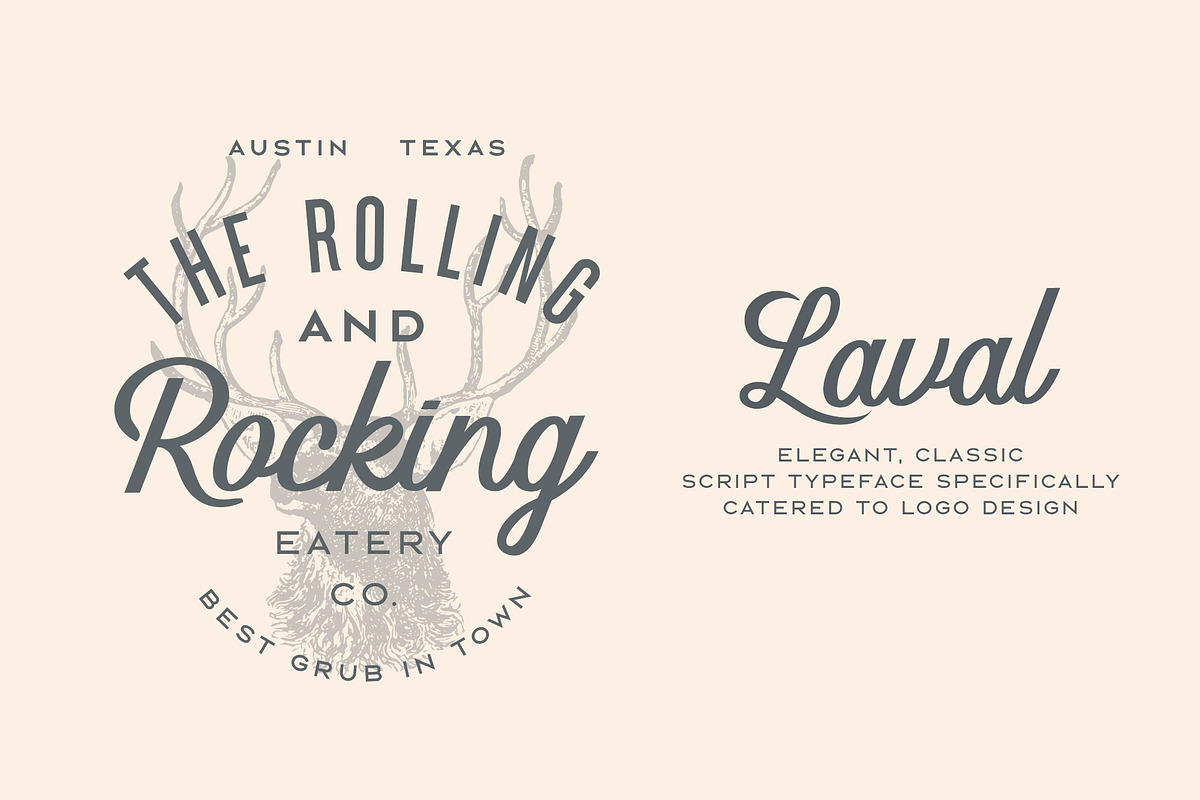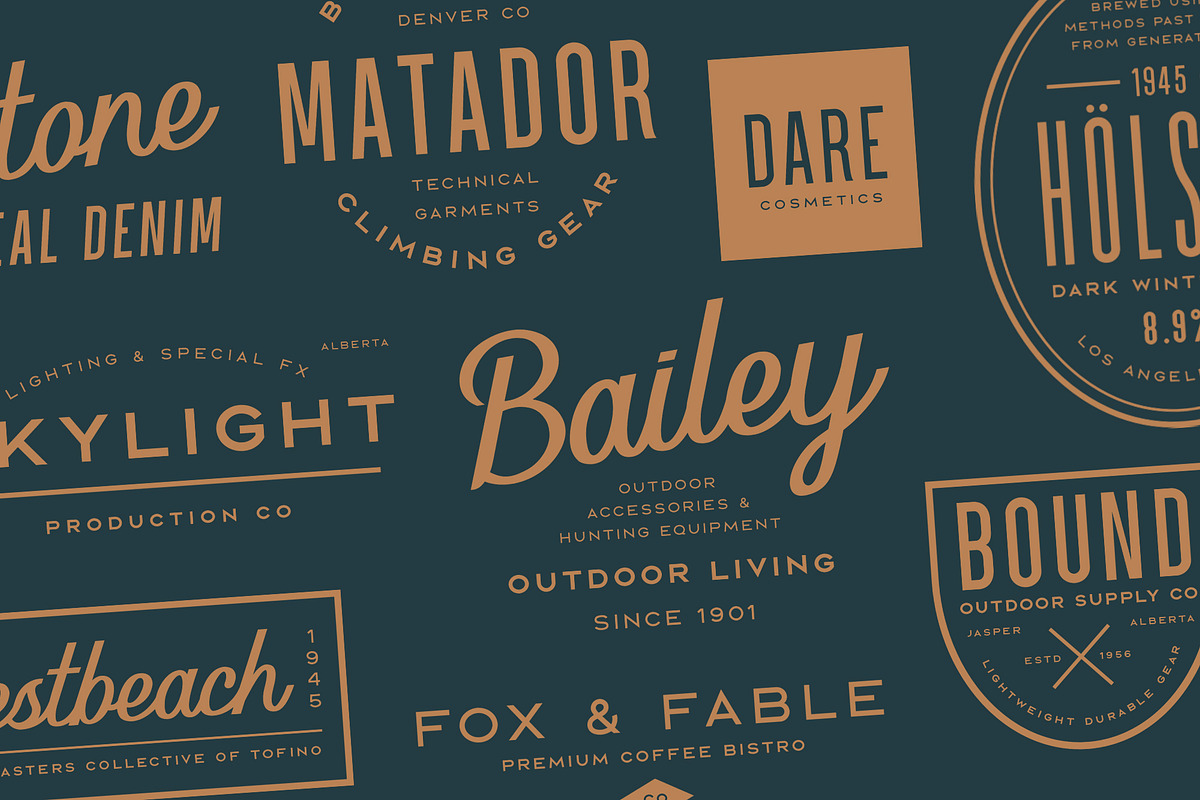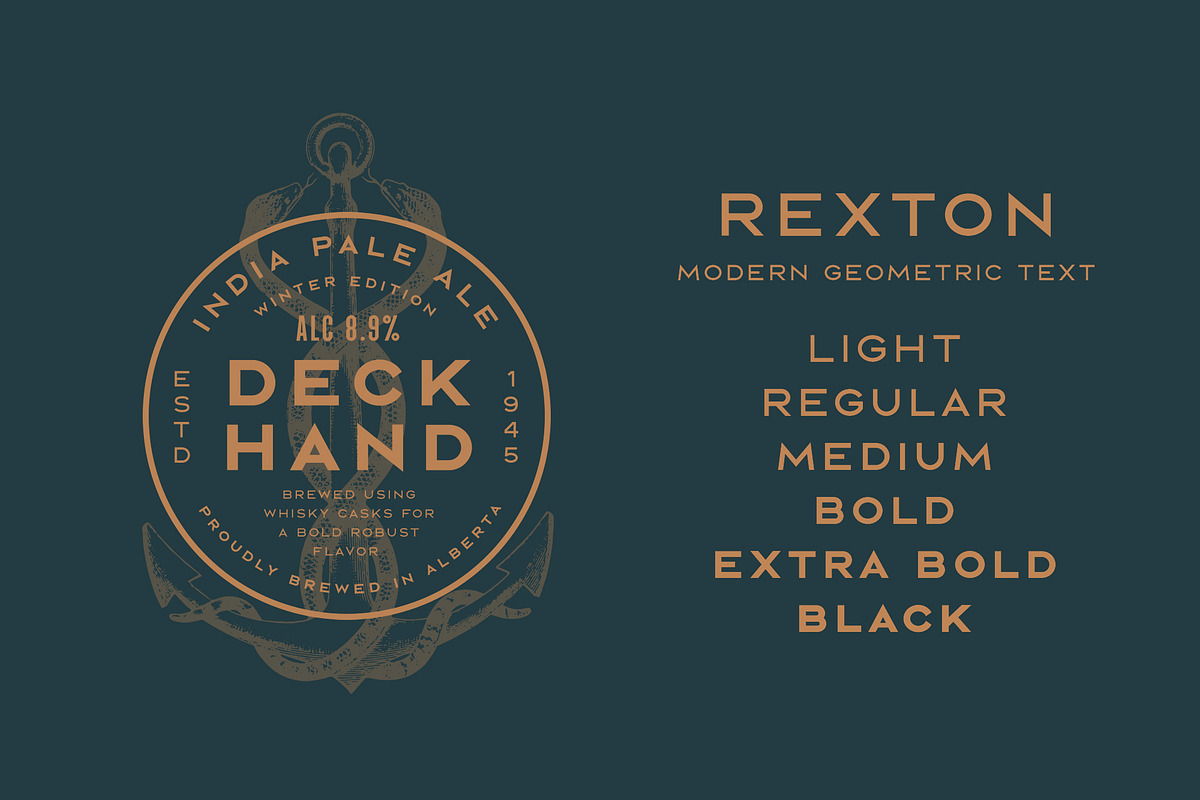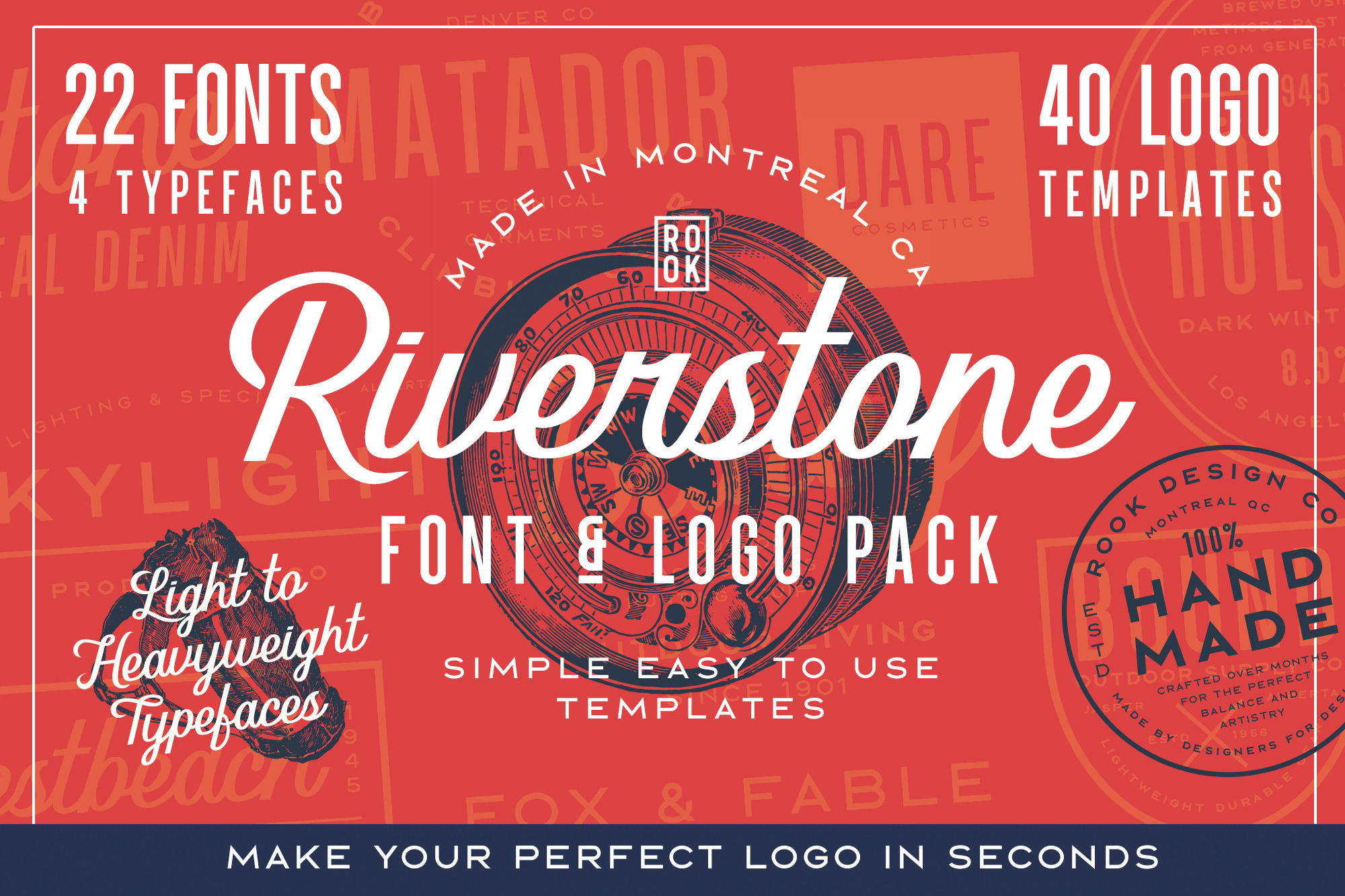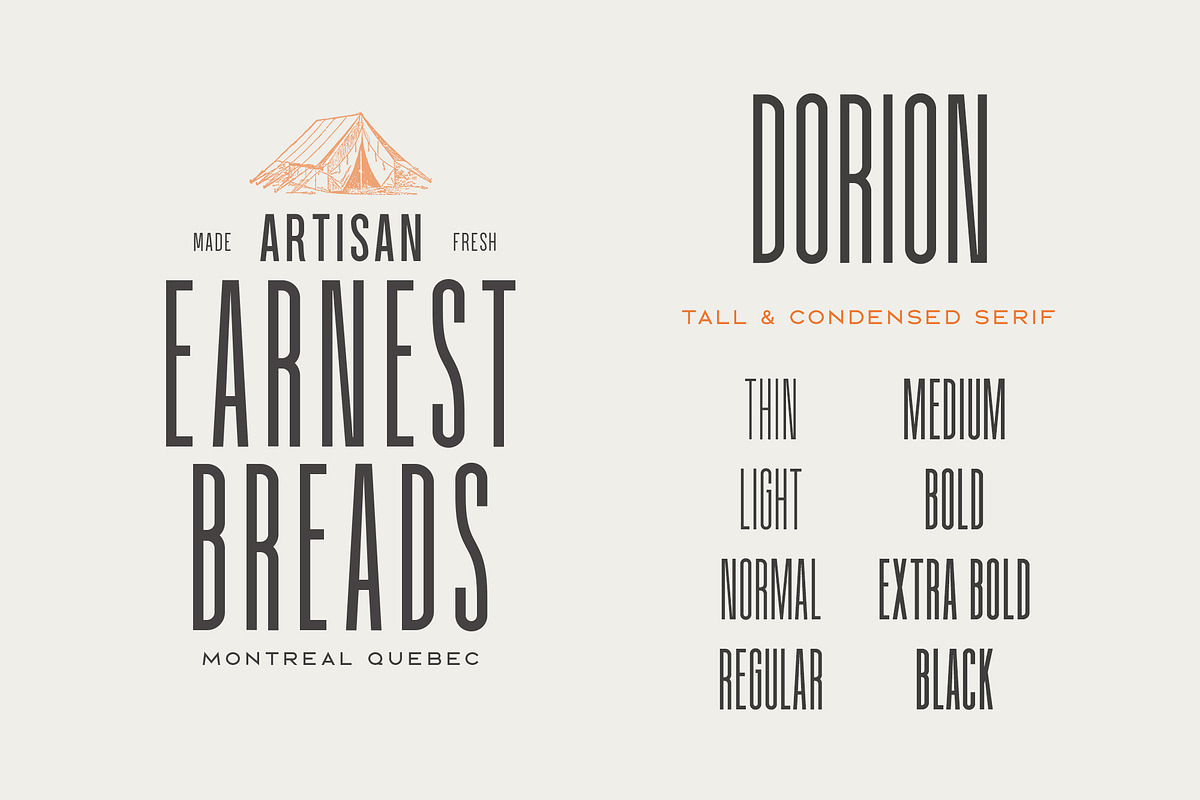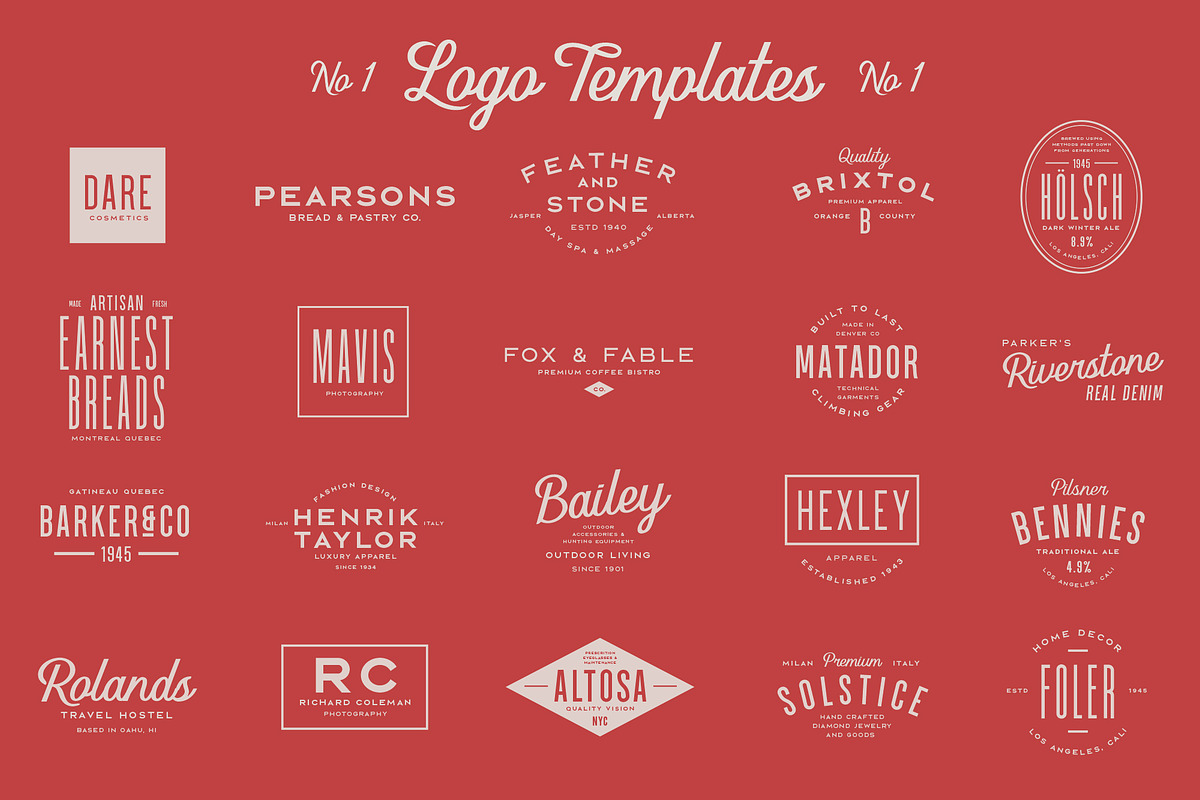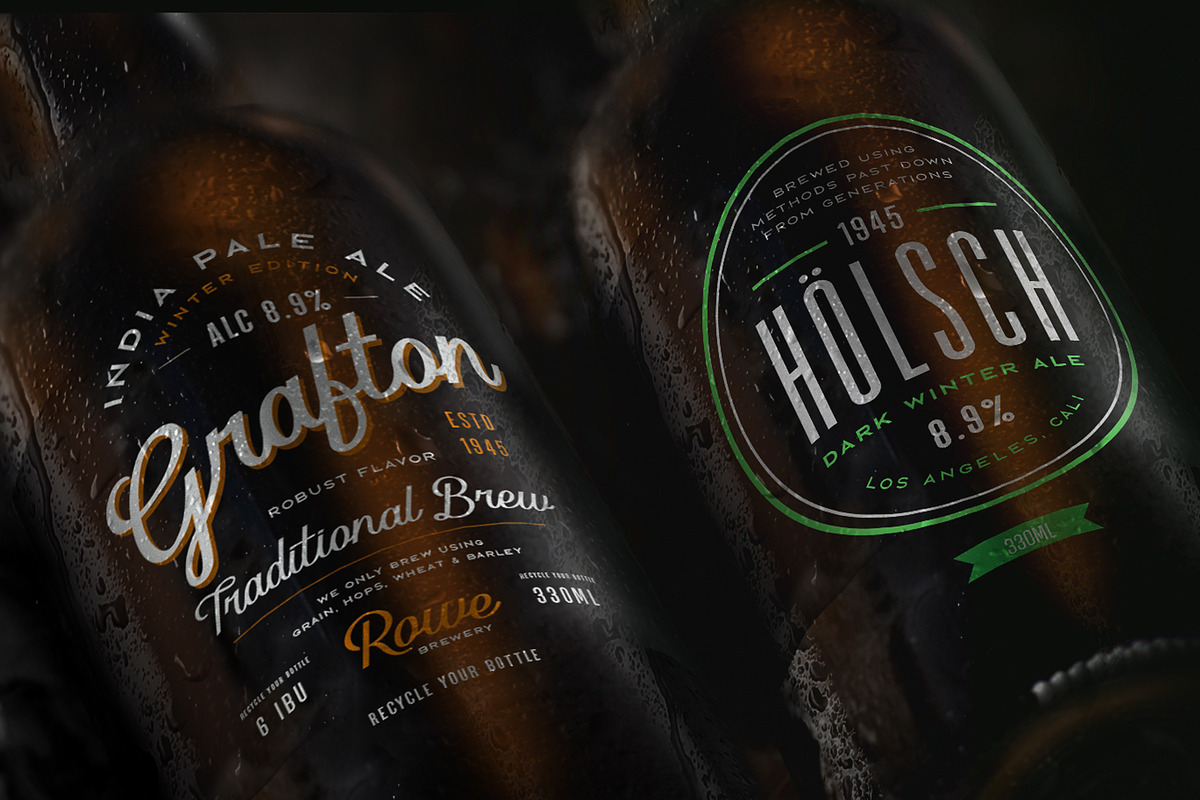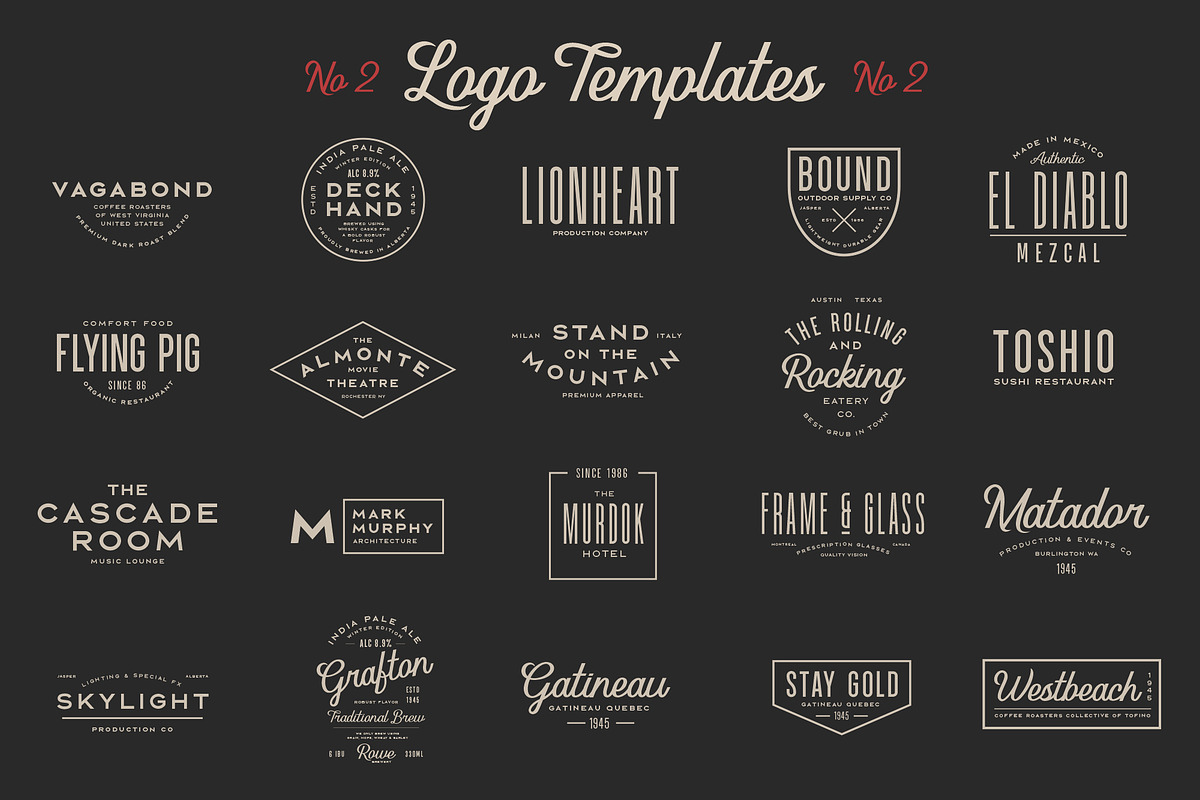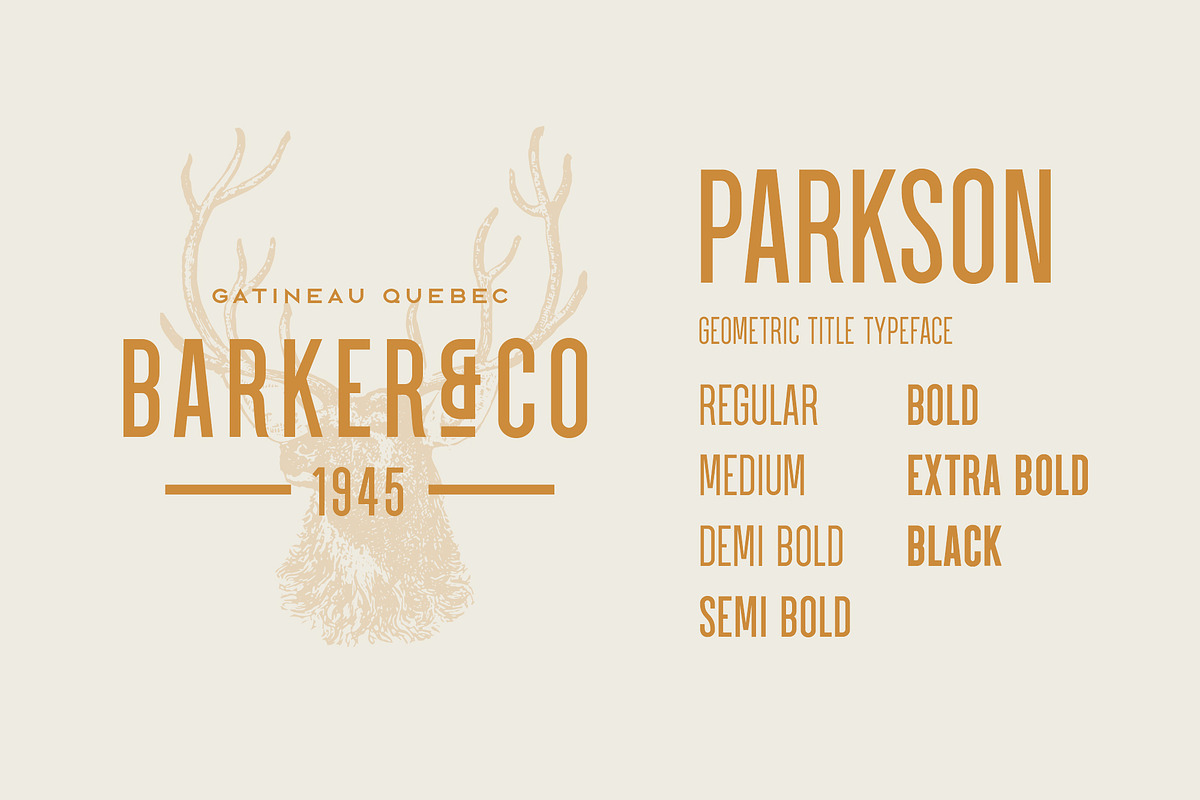
Riverstone Font & Logo Template Pack
Riverstone Logo & Font Pack is everything you need to get your brand the kick start (or branding update) it needs. Install the fonts, load up Adobe Illustrator and you're ready to start editing the text for 40 templates.
A massive Twenty two fonts are included in four different typefaces. These typefaces were designed to cover a wide range of type needs. Included is short and wide fonts, as well as extra tall and condensed fonts (and everything in between), so that you can make your text gracefully fit any shape and size you need it to.
Parkson Typeface - Included are 7 weights from the Parkson family of fonts. This is a great display typeface that works exceptionally well for titles. Included weights cover you from regular to black.
Laval Typeface - This script typeface is a great complement to all of the included sans serif typefaces. Give your logo some ornate, artistic flair with this script font.
Rexton Typeface - This family of 6 weights is perfect for small supporting type. It's designed to maximize legibility at small sizes, but works great on it's own as a classic geometric title typeface.
Dorion Typeface - A unique tall & condensed serif. This font works great for longer title text, or titles that need to fit a taller shape which is something every designer should be prepared for. Its clean geometric style is timeless.